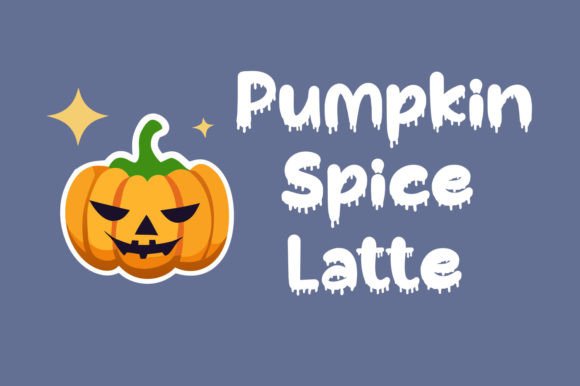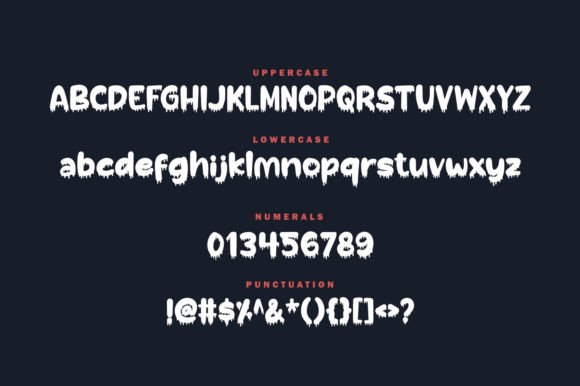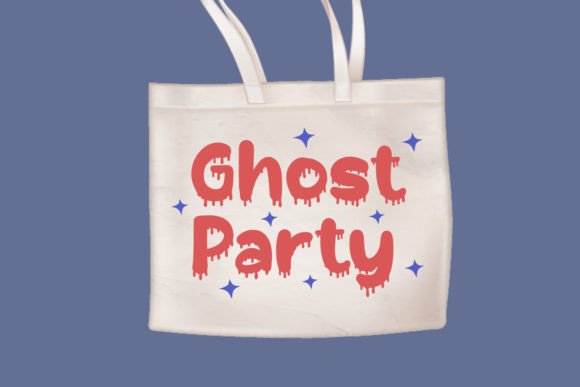
Unleashing the Terror with Moghty Hard Font
As I sat in front of my computer, staring at a blank canvas, I knew I needed something to take my design to the next level. That’s when I stumbled upon the Moghty Hard Font, a typeface that sent shivers down my spine with its eerie, dripping blood design. It was like the perfect storm of creativity had descended upon me, and I knew I had to explore this design resource further.
The Moghty Hard Font is more than just a design tool – it’s a game-changer for designers looking to elevate their dark, brooding creative projects. With its high-quality, free download option, it’s a must-have for any design enthusiast. Whether you’re working on a horror game logo, movie poster, or book cover, this font is sure to amplify the intensity and send chills down your audience’s spines.
- Unique, bold design with a mix of modern and vintage elements
Honest Review: Moghty Hard Font
I recently had the chance to work with the Moghty Hard Font, and I have to say, it’s a great addition to any designer’s toolbox. This high quality font is a fantastic resource for any creative project that needs a bold, edgy look.
One of the things that stands out about the Moghty Hard Font is its versatility. With a transparent background, you can easily layer it over other design elements without worrying about visual clutter.
- Perfect for creating eye-catching headlines and titles
- Only available in a limited number of font weights
- Not ideal for projects that require a lot of fine typography
Overall, I’m impressed with the Moghty Hard Font and would recommend it to designers looking for a bold, high-quality font. While it may not be perfect for every project, it’s a great addition to any design resource collection.
Moghty Hard Font
Moghty Hard Font is a versatile font that can be used in a variety of creative projects, including:
- Poster design
- Brochure design
Alternatives to Moghty Hard Font
Abril Fatface
Abril Fatface is a high-quality, elegant script font ideal for creative projects requiring a touch of sophistication. It’s perfect for use in titles, headings, and other design elements where a refined, handwritten look is desired. Abril Fatface offers a transparent background, making it easy to combine with other design elements. While it’s not as bold as Moghty Hard Font, it provides a more subtle, refined alternative for designers seeking a high-end look.
Montserrat is a free download font suitable for a wide range of design projects, from titles to body text. Its clean, modern design makes it an excellent choice for websites, apps, and other digital platforms. Montserrat is more versatile than Moghty Hard Font, offering a range of weights and styles to suit different design needs. While it lacks the boldness of Moghty Hard Font, it provides a high-quality, modern design resource for designers.
Playfair Display is a luxurious, high-end font perfect for creative projects requiring a touch of elegance. Its intricate details and ornate design make it ideal for use in titles, headings, and other design elements where a sophisticated look is desired. Playfair Display offers a transparent background, making it easy to combine with other design elements. While it’s more ornate than Moghty Hard Font, it provides a more refined, high-quality design resource for designers.